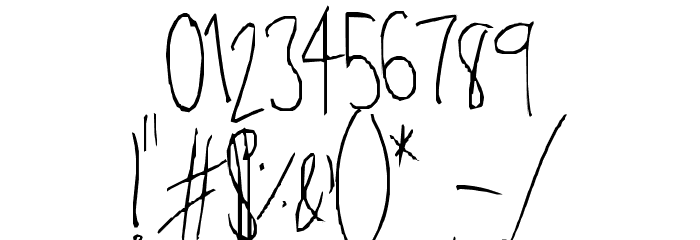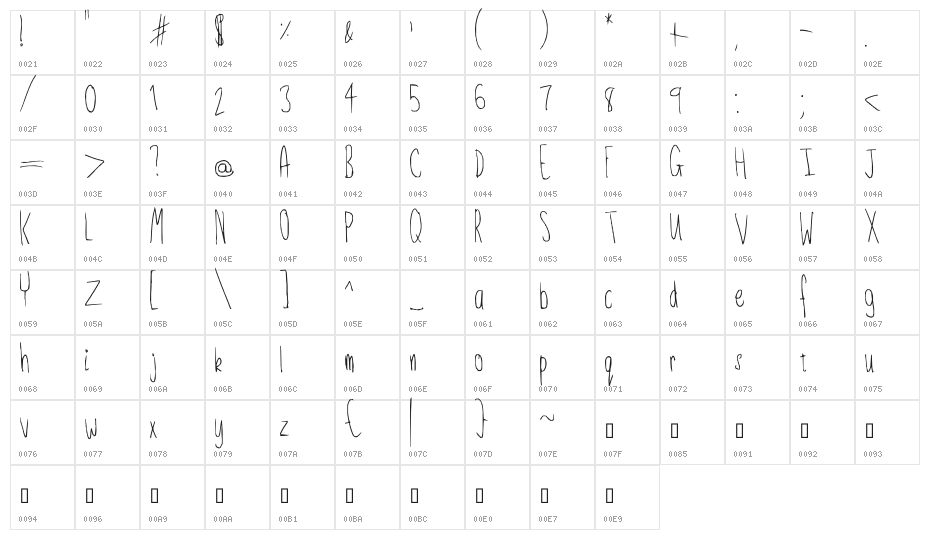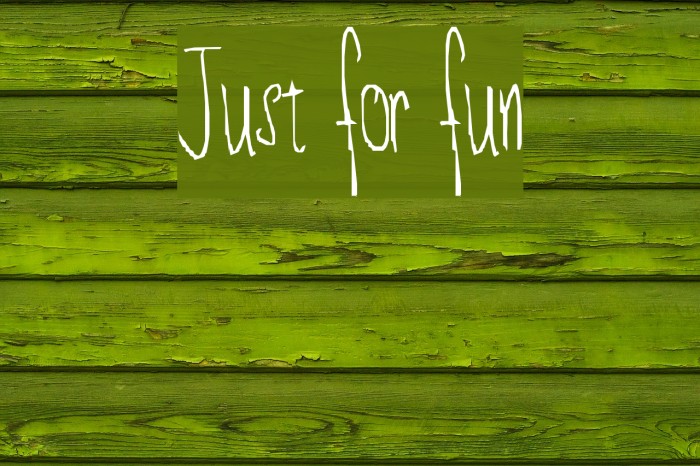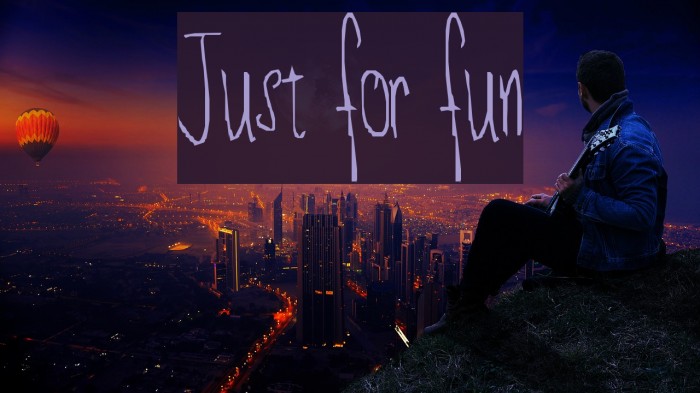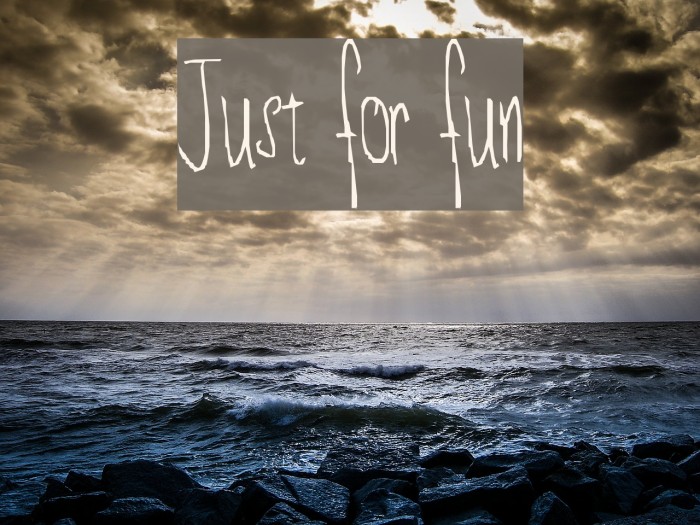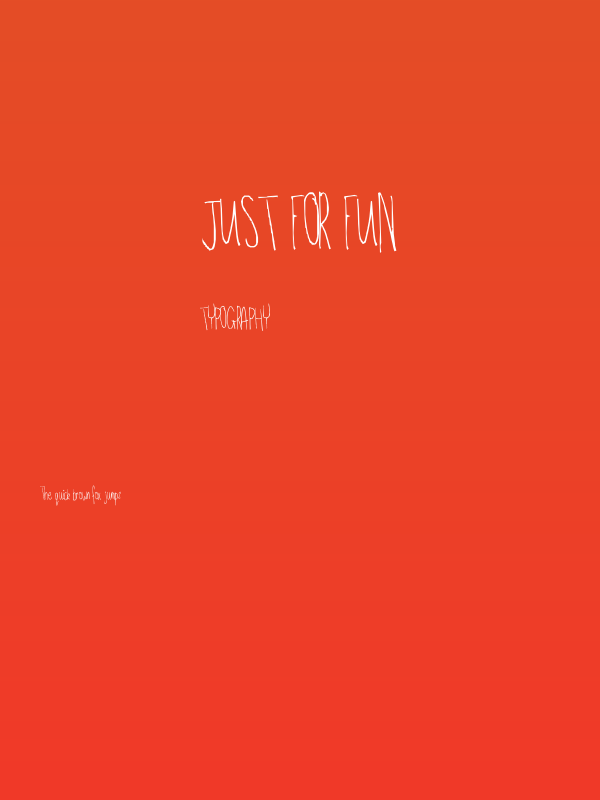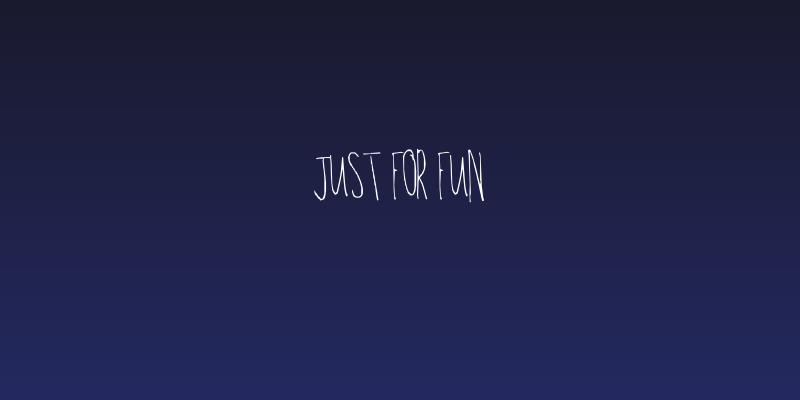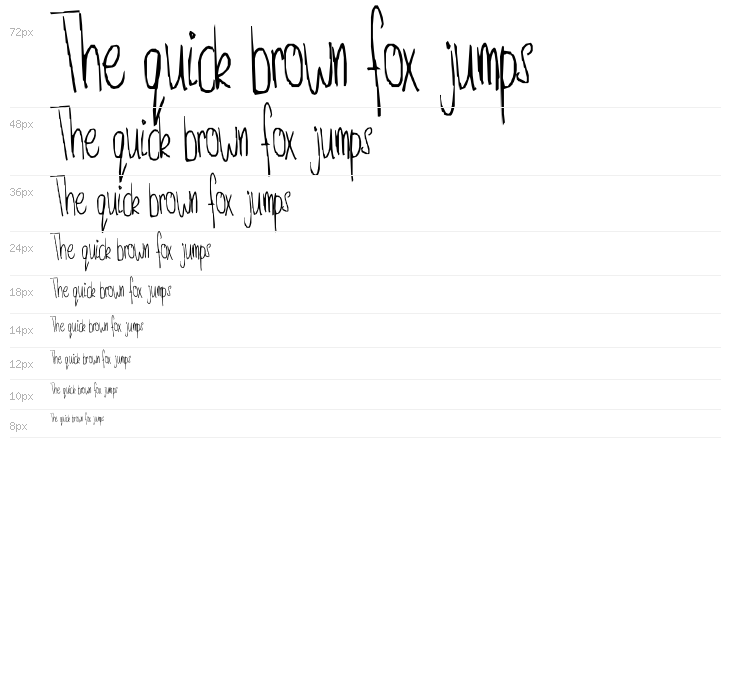
Just for fun Font
Just for fun Description
This font features a playful and whimsical handwritten style, characterized by its irregular and uneven strokes. The letters are tall and narrow, with a casual, freeform appearance that gives it a unique charm. The uppercase and lowercase letters maintain a consistent style, with slight variations in stroke width that add to its informal look. Numbers and special characters follow the same playful design, making it suitable for creative and informal projects. The overall feel is light-hearted and artistic, perfect for adding a personal touch to any design.
| Proposed Projects | Ideal for greeting cards, children's books, casual invitations, and creative branding. |